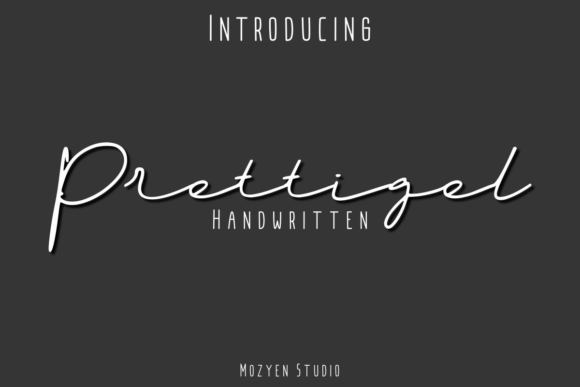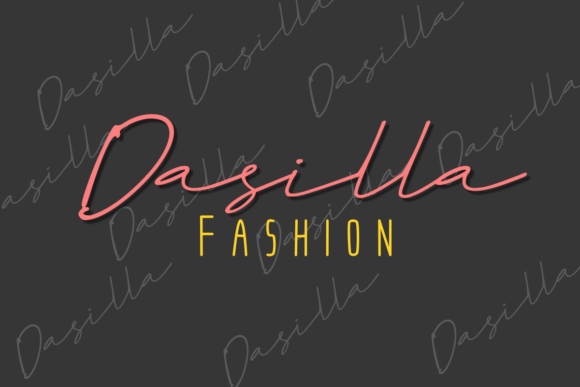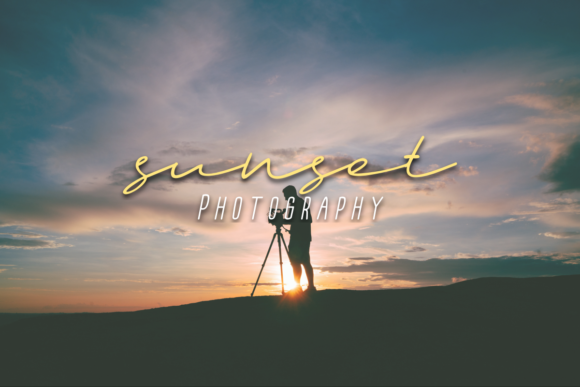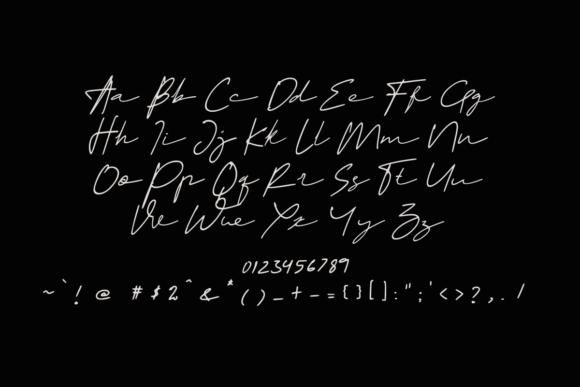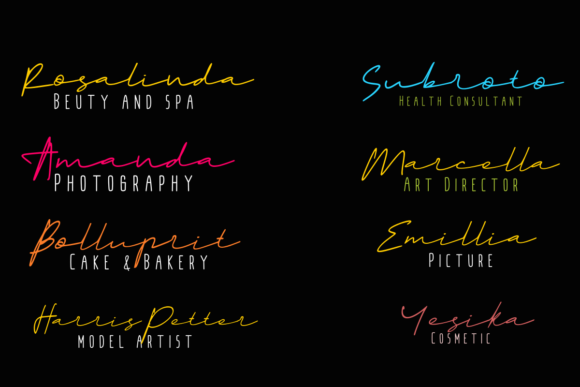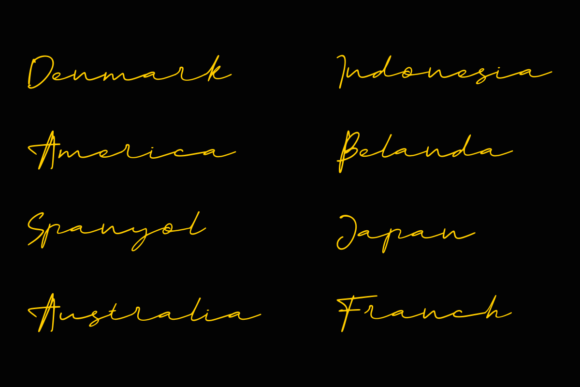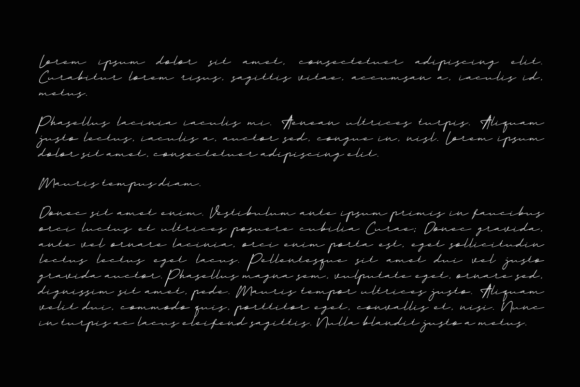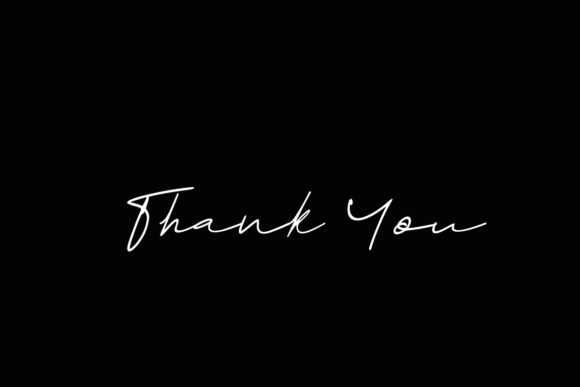
HomeScript FontsPrettigel Font Script Fonts Prettigel Font FacebookXPinterestWhatsApp Prettigel Font Poster 2 Prettigel Font Poster 3 Prettigel Font Poster 4 Prettigel Font Poster 5 Prettigel Font Poster 6 Prettigel Font Poster 7 Prettigel Font Poster 8 About Prettigel Font Prettigel is a sweet and charming script with a cool twist. Get inspired by its modern elegance. DOWNLOAD ON CREATIVE FABRICAThis font is sold and delivered by Creative Fabrica. Font Canyon may earn a commission if you buy through this link. People also explored Someday Font Belliza Font Blakely Harmony Font Fernynda Font Sea Mist Font Kacher Gacor Font Simple Present Font Razzle Cane Lite Font Zlatan Black Font 313 0 TagsPrettigel Font Previous articleBeautiful Struggle FontNext articleGolden Malarkey Font LEAVE A REPLY Cancel reply Comment: Please enter your comment! Name:* Please enter your name here Email:* You have entered an incorrect email address! Please enter your email address here Website: Save my name, email, and website in this browser for the next time I comment. Personal Use Free Pumpkins Candles Personal Use Free Read more about this font I Am Exceptional Personal Use Free Read more about this font BD Spinner Personal Use Free Read more about this font Dealisya Personal Use Free Read more about this font BLOG Exploring Font Trends Shaping Communication in the Digital Era Fonts, like all design elements, are subject to trends. They play a crucial role in communicating a brand's personality,... Modern Sans-Serif Fonts That Brands Love in 2025 Where to Buy American Fonts Online in 2024 Fonts That Capture the Spirit of New York City